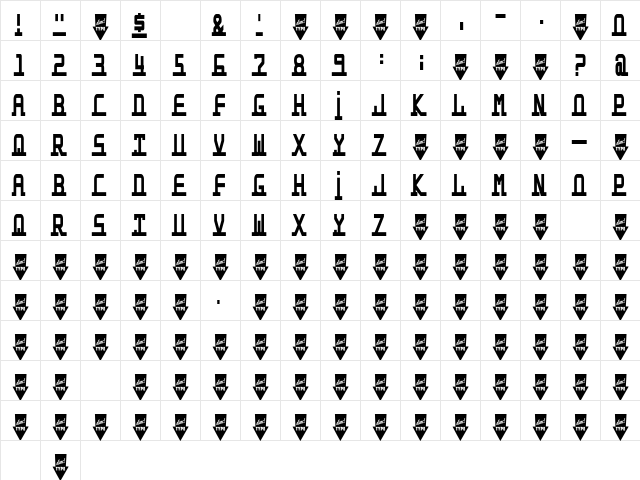
Lonely Planet Boy Regular
Design Context for Lonely Planet Boy Typeface
Lonely Planet Boy is a composed and adaptable typeface that performs quietly and consistently across a wide range of design contexts.